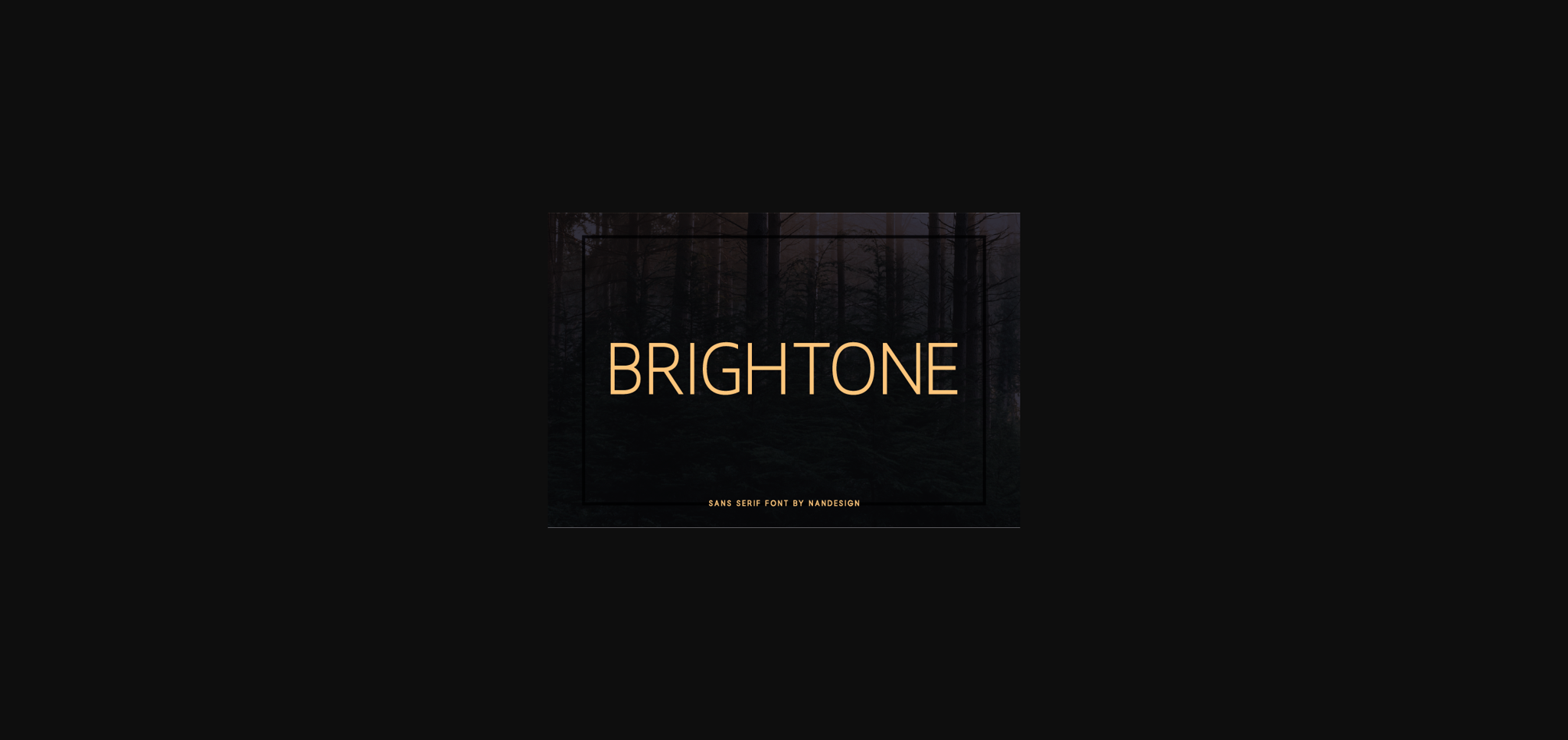
About Brightone Font
Brightone is a magnificent sans serif font. It is perfect for displays, headers, invitations, weddings invitations, and much more!